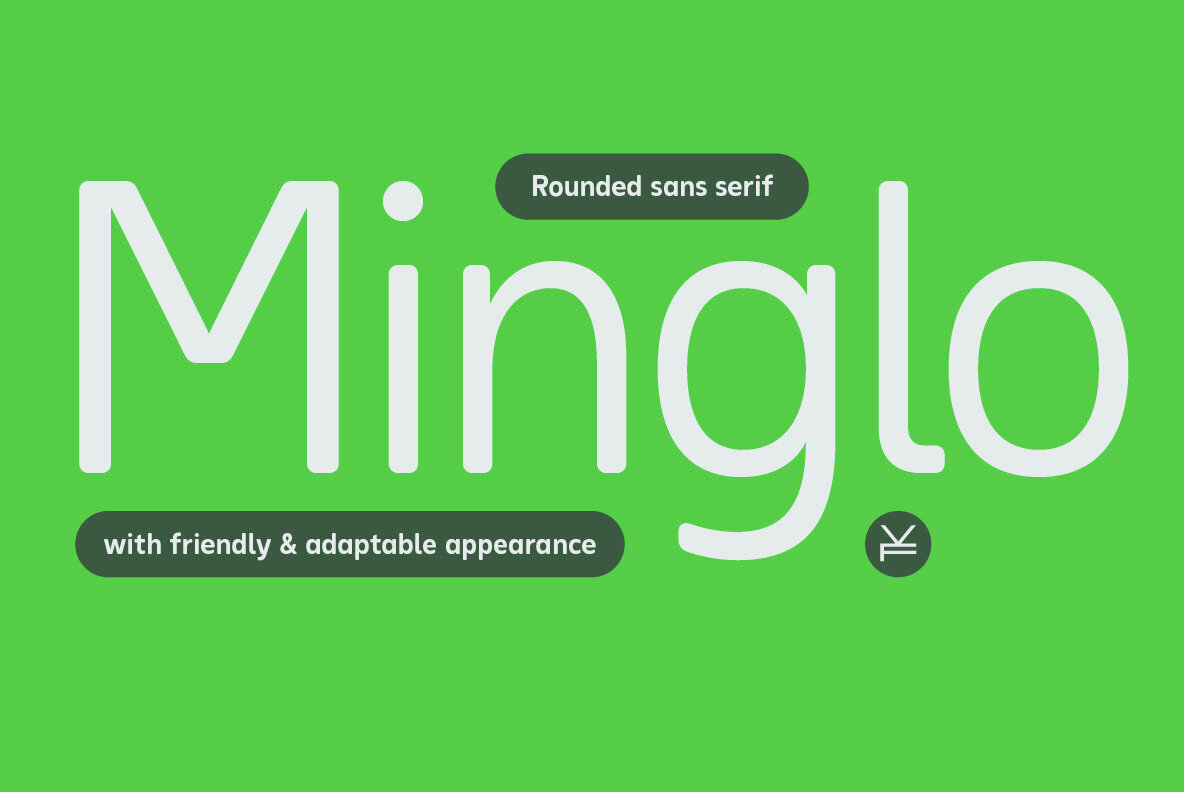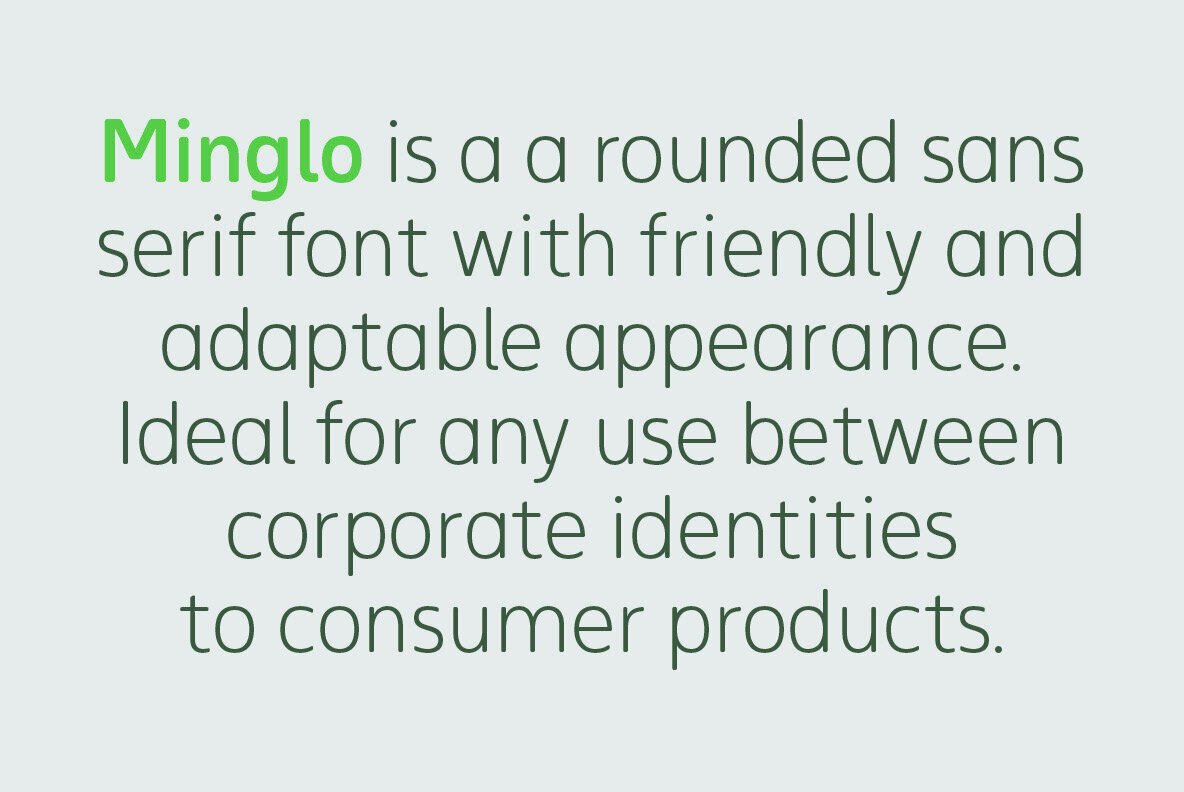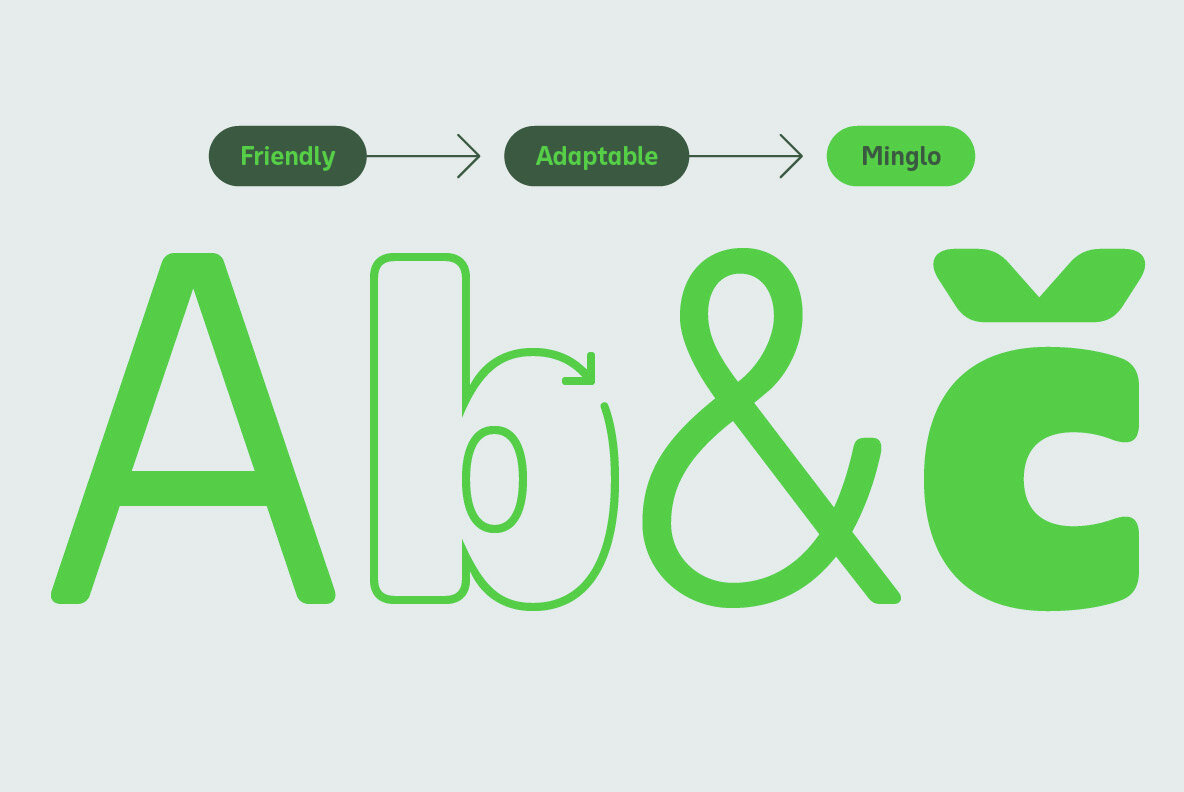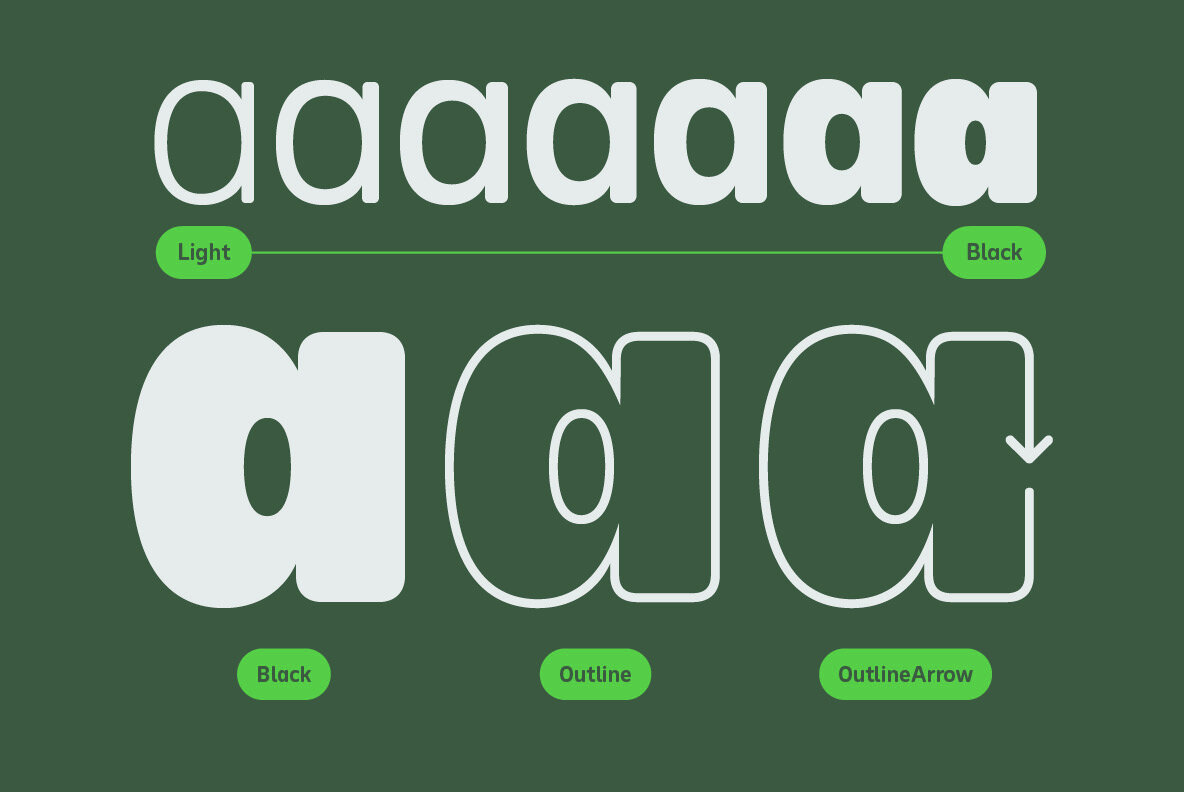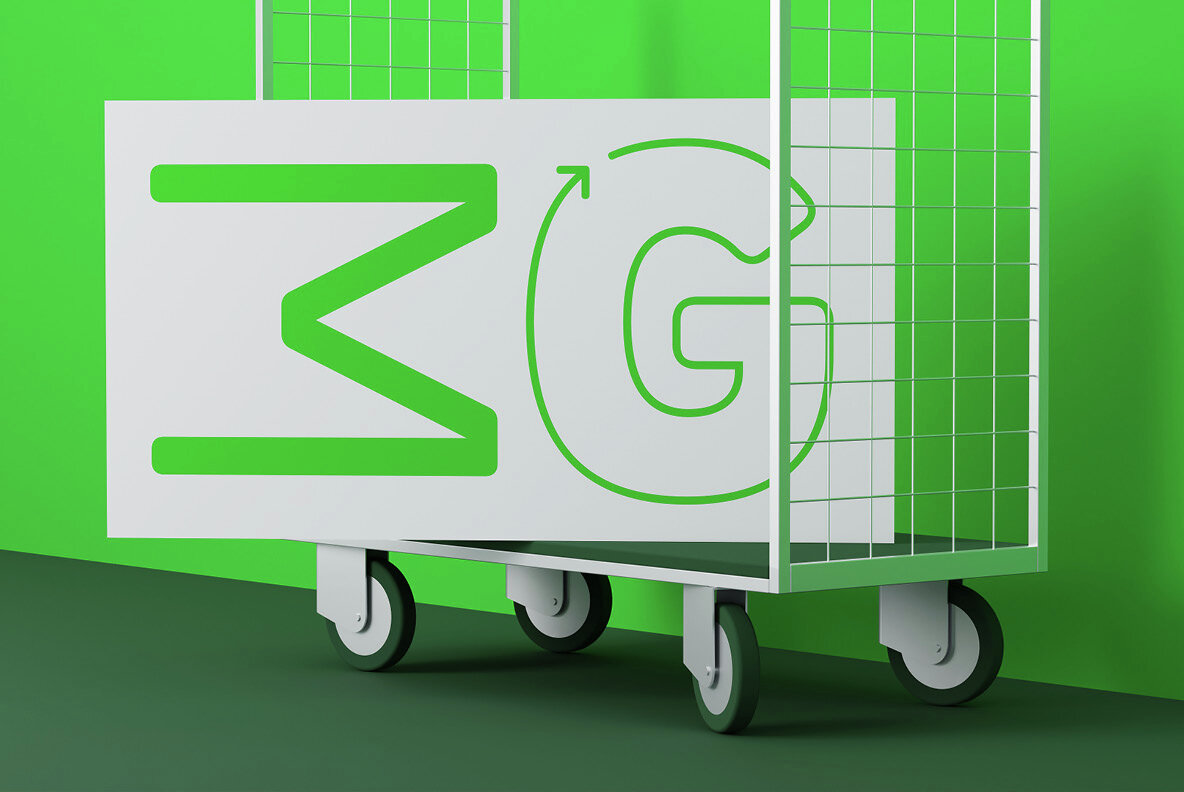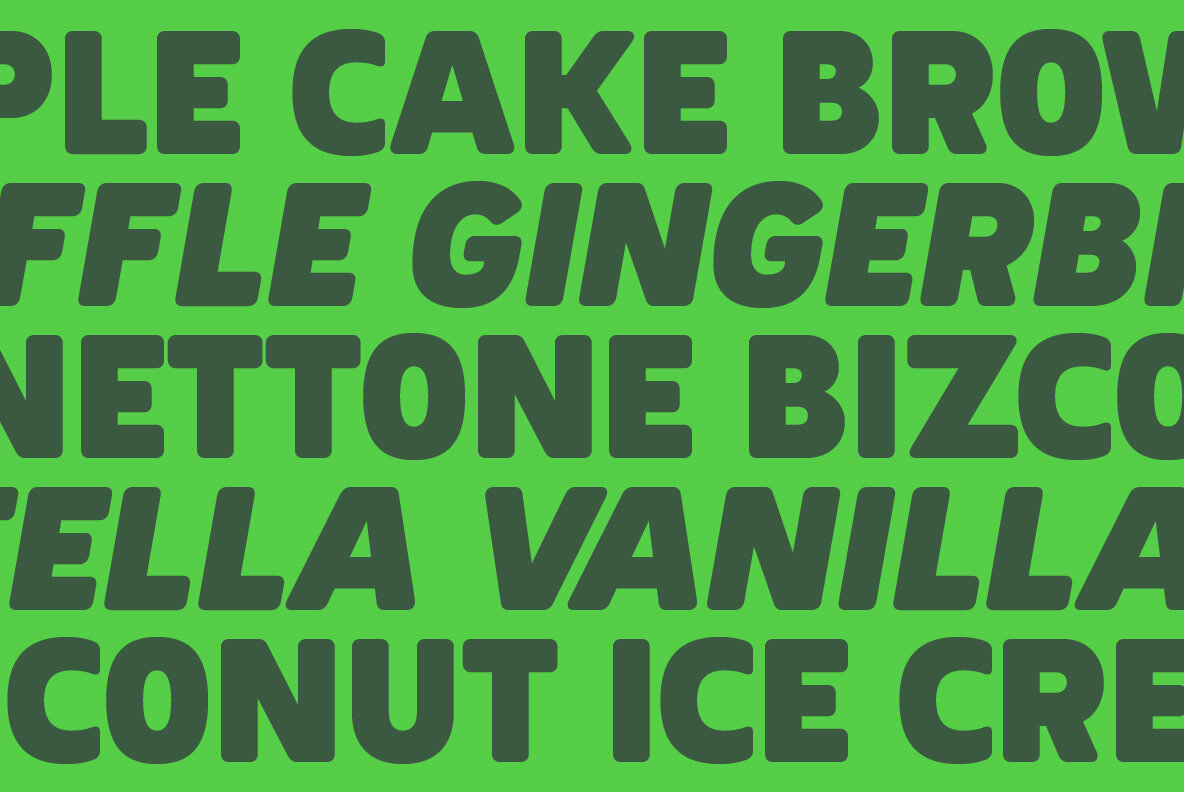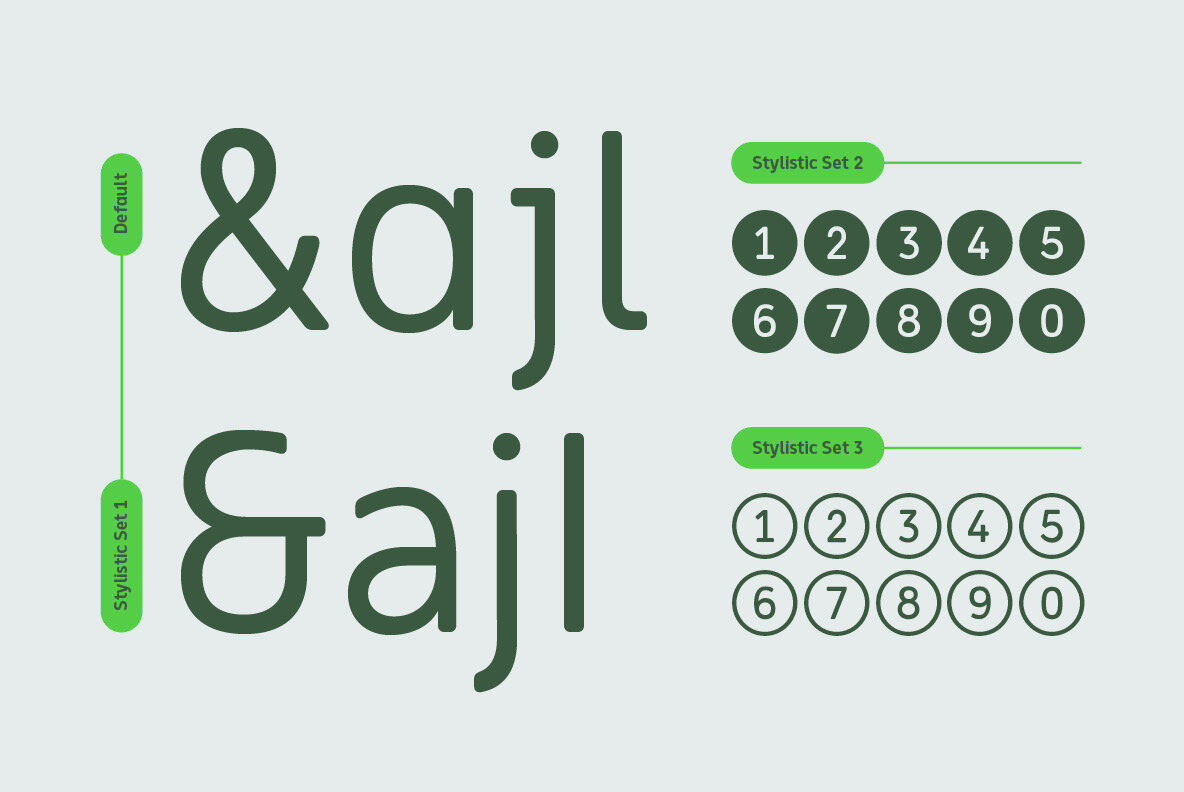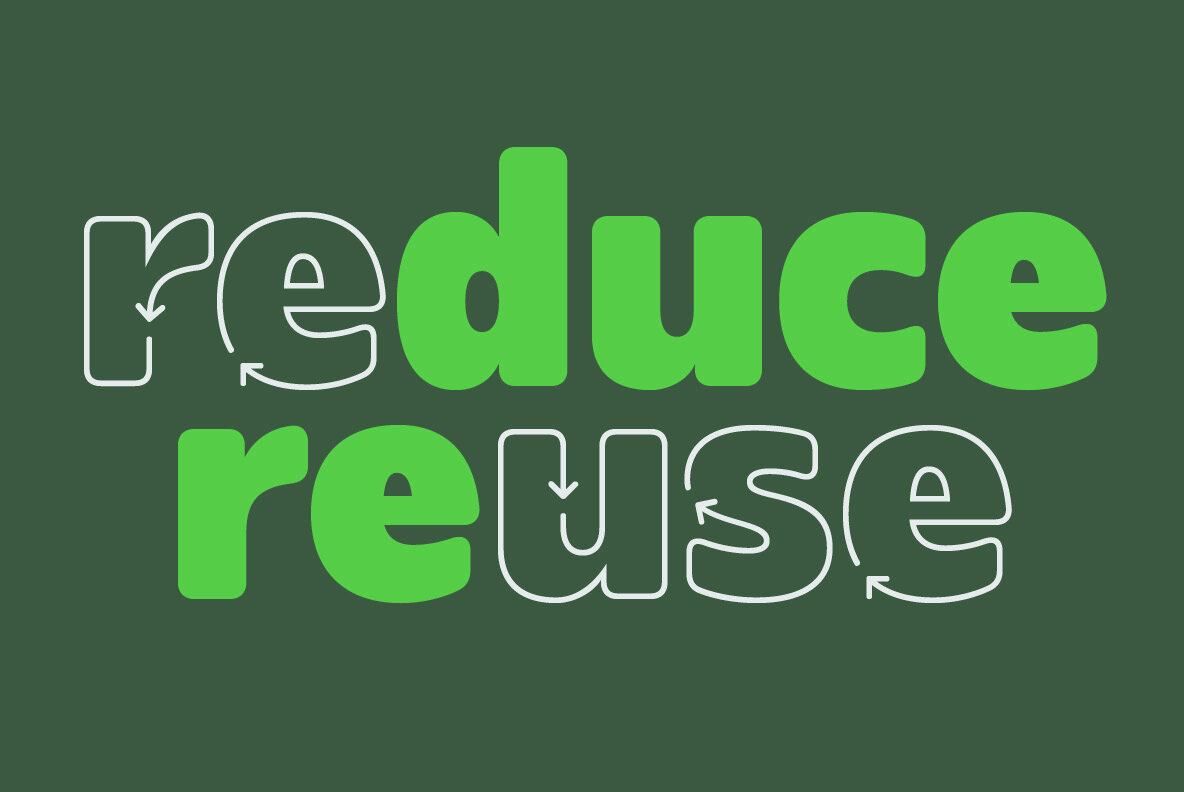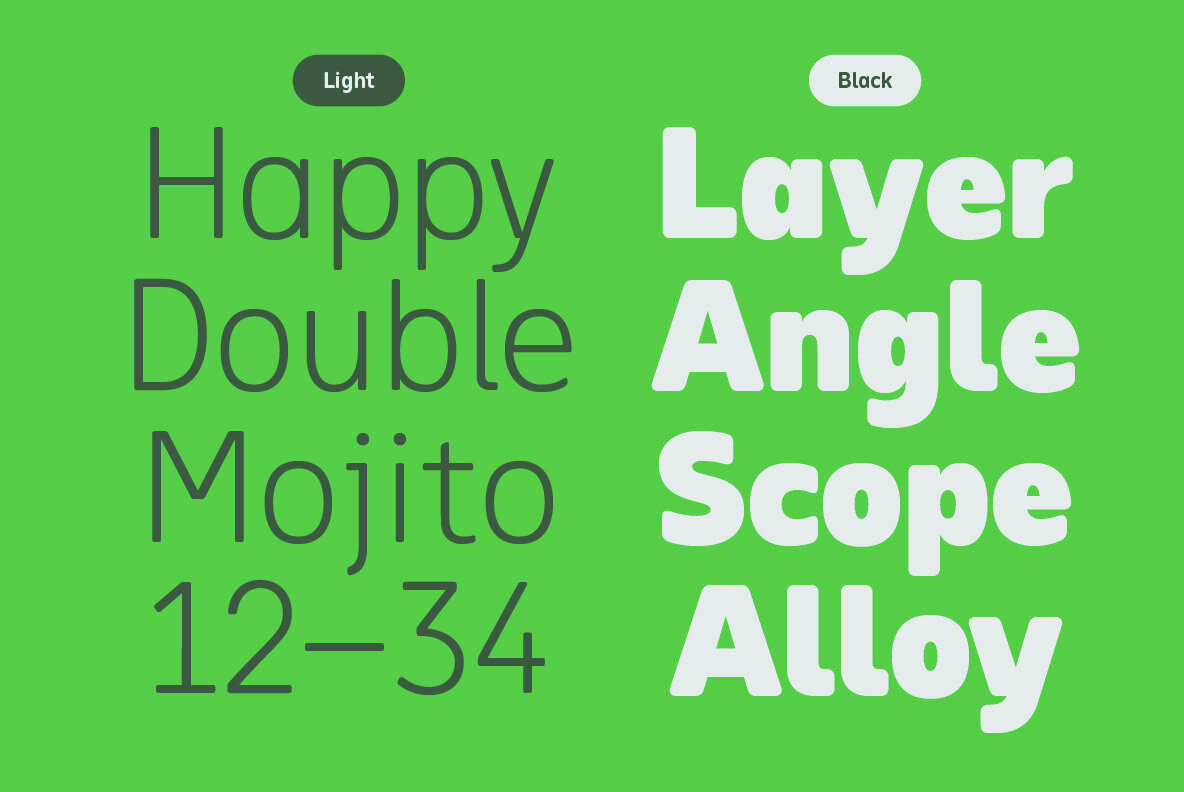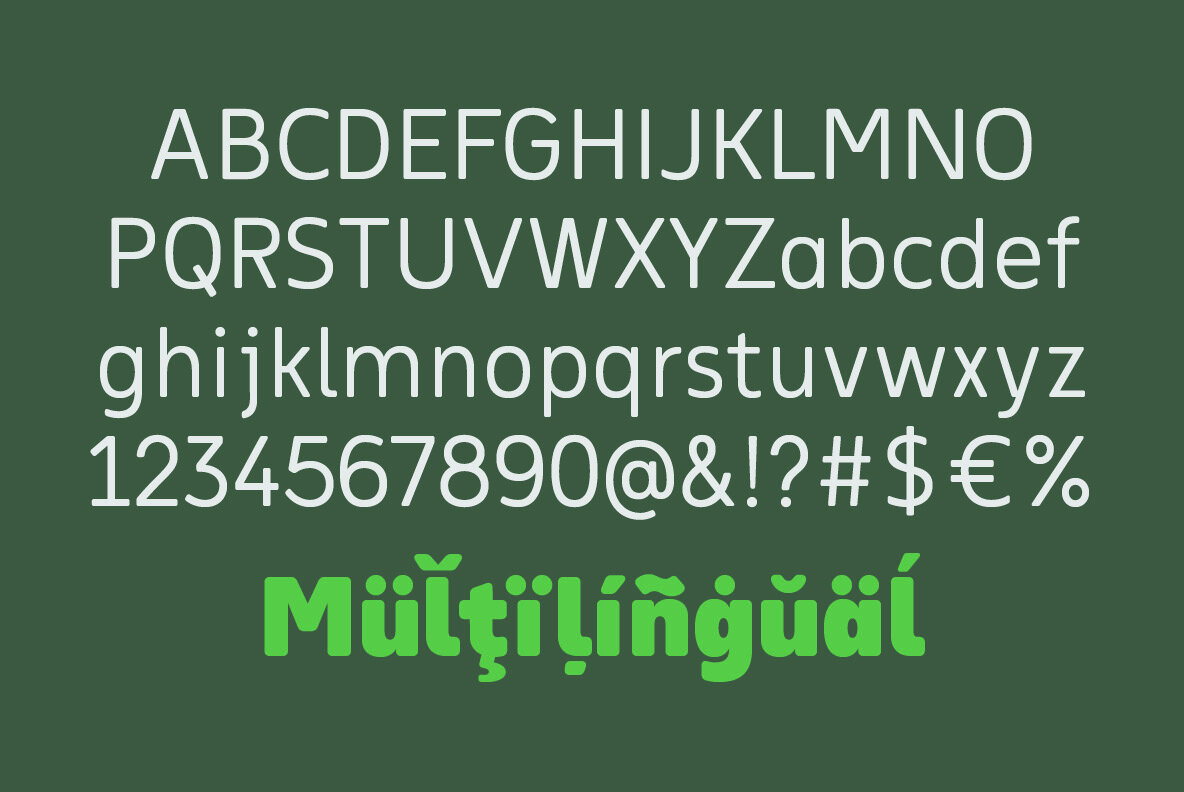
Minglo Font
Minglo is a rounded sans serif font with a friendly yet versatile design, perfect for everything from corporate branding to consumer products. With seven weights ranging from Light to Black, each paired with matching italics, Minglo offers flexibility for a variety of creative applications. In addition to the core styles, the Minglo font family includes two distinctive display styles: Minglo Outline and Minglo OutlineArrow, the latter featuring arrow-shaped details for eye-catching typography. Designed for broad usability, Minglo supports an extensive range of Latin languages and comes with three Stylistic Sets.